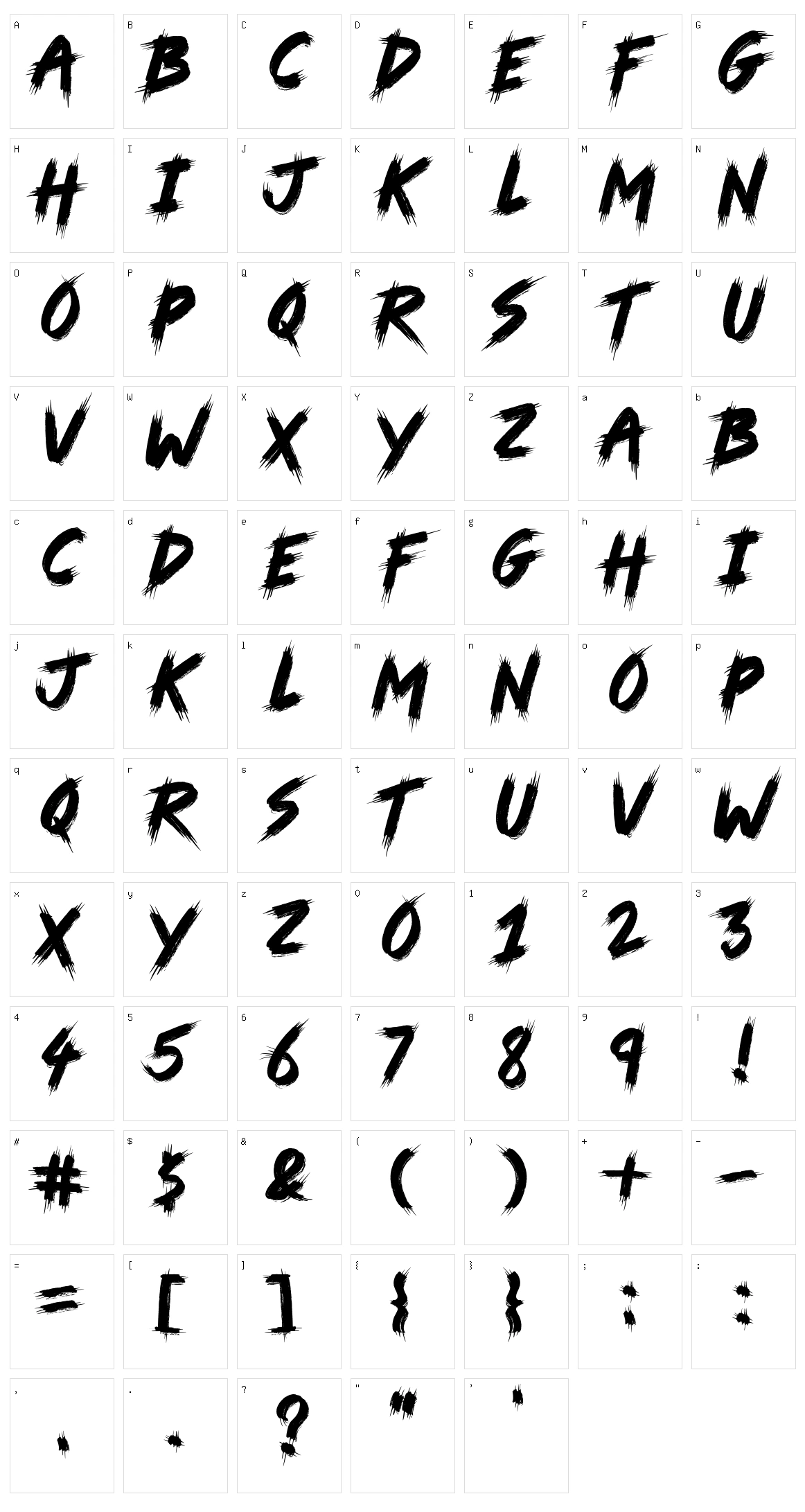
The free font Grave Snatchers is carefully designed by JSH creates, showcasing a thoughtful balance of creativity and usability and falls under the Horror font style. When you download the ZIP file, it contains only 346.93 KB of font files, making it lightweight and quick to download. Please review the license details below to understand permitted usage and distribution rights. If license information is not available, we recommend using this font for personal projects only or contacting the author directly for commercial usage permissions.